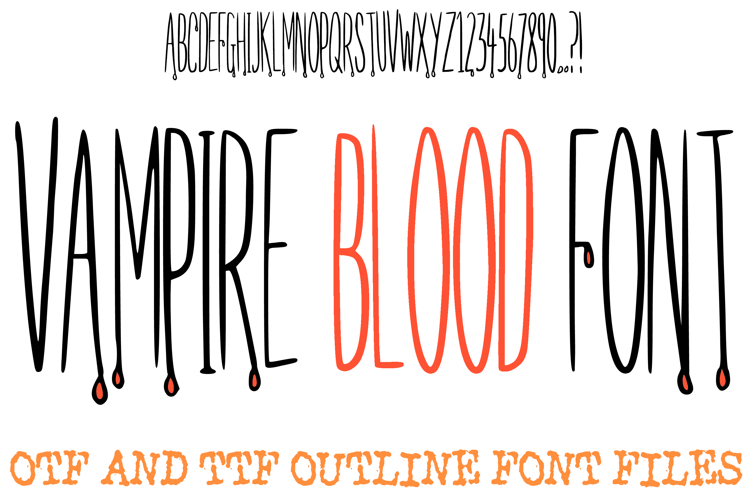
Vampire Blood Lettering Font Horror Halloween ABC OTF Type
The Vampire Blood Font is a tall, slender display typeface designed with a dark, elegant aesthetic. Featuring elongated letterforms and dramatic "dripping" liquid accents at the base of each character, this font is a perfect choice for designers working on gothic book covers, Halloween event invitations, horror movie titles, and alternative branding projects.
The hand-drawn, condensed style captures a sophisticated yet eerie mood, as if each letter were carefully inked with a fountain pen before beginning to bleed. Whether you are creating spooky social media graphics or designing seasonal apparel, this font provides a high-contrast, atmospheric look that remains surprisingly legible despite its stylistic flourishes.
Dramatic Liquid Accents: The unique dripping elements at the bottom of the letters add immediate visual interest and a sense of movement to your text.
Tall Condensed Profile: The slender, vertical nature of the alphabet allows for impactful, space-saving headers that feel modern and refined.
Atmospheric Gothic Vibe: Perfectly balances horror themes with elegant linework, making it versatile for both gritty and high-end spooky designs.